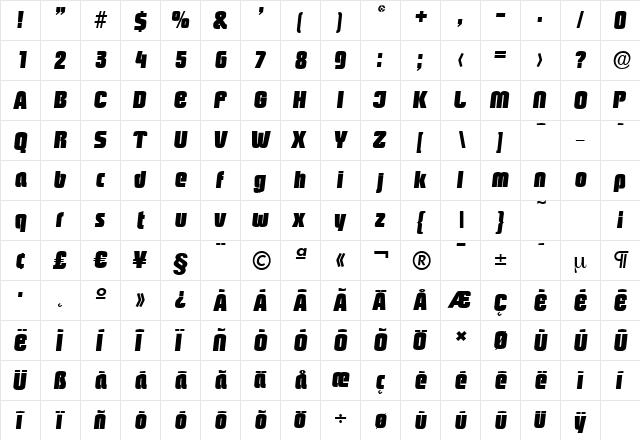
PasadenaSerial-Heavy Italic Font Preview
PasadenaSerial-Heavy Italic
PasadenaSerial-Heavy Italic Font Details
Design Context for PasadenaSerial-Heavy Typeface
PasadenaSerial-Heavy offers clean, dependable letterforms without strong stylistic allegiance, making it a practical choice for designers who need flexibility. The dynamic lean of this cut emphasises speed and emphasis in any layout.
Pro Tip: Try PasadenaSerial-Heavy for annotation and caption copy alongside an upright companion — the contrast in angle creates a dynamic but ordered typographic system.